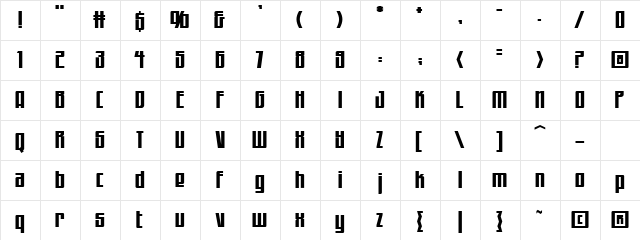
WorkingMan Regular Font Preview
WorkingMan Regular
Design Context for WorkingMan Typeface
WorkingMan is a composed and adaptable typeface that performs quietly and consistently across a wide range of design contexts.